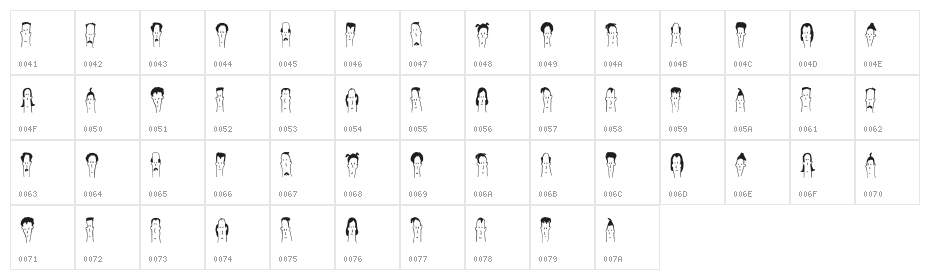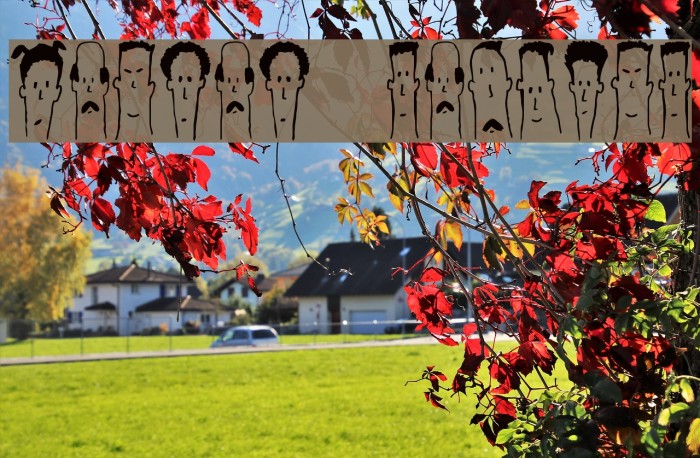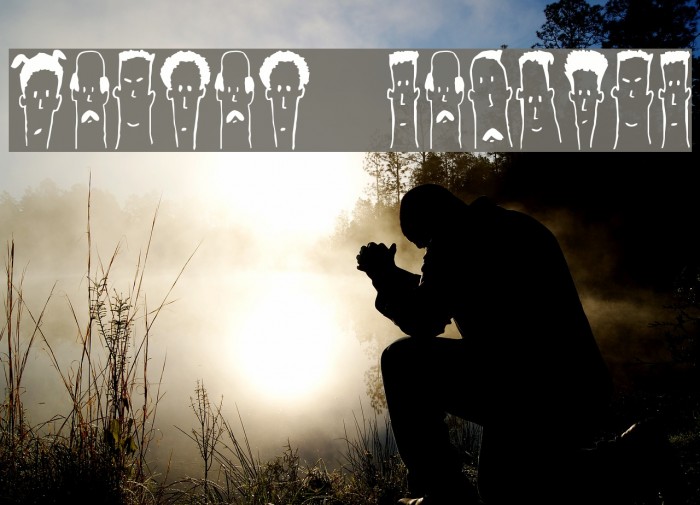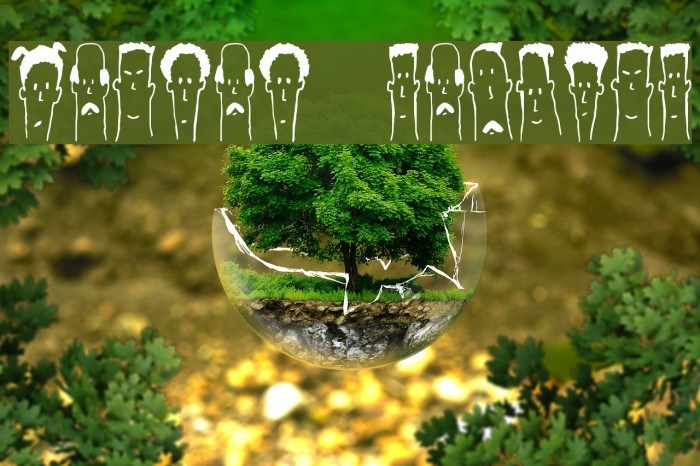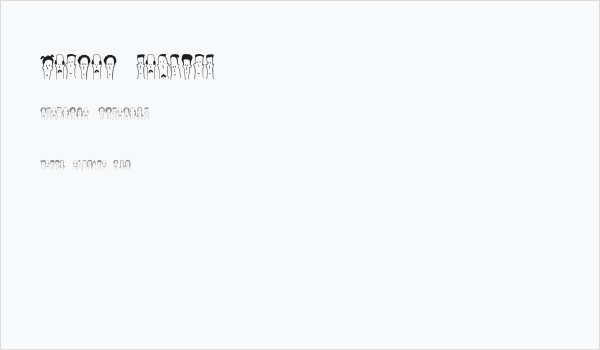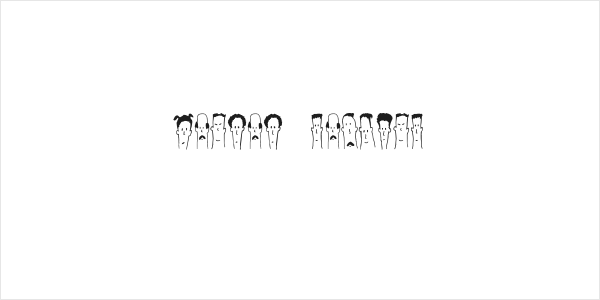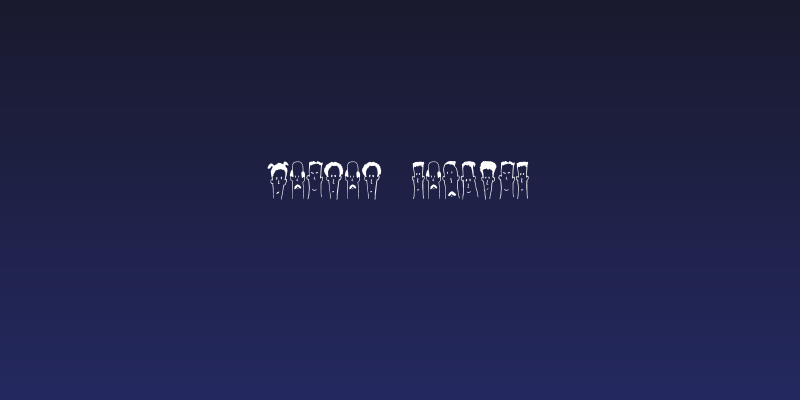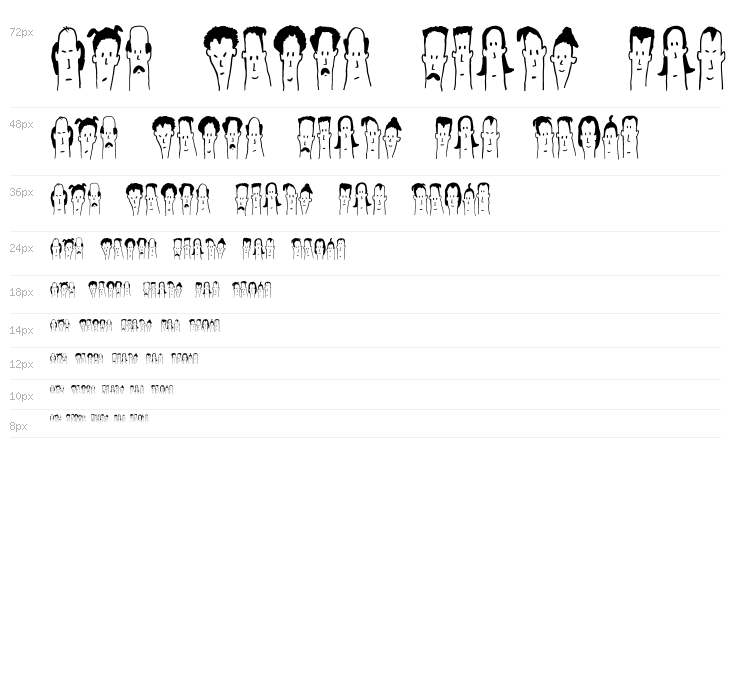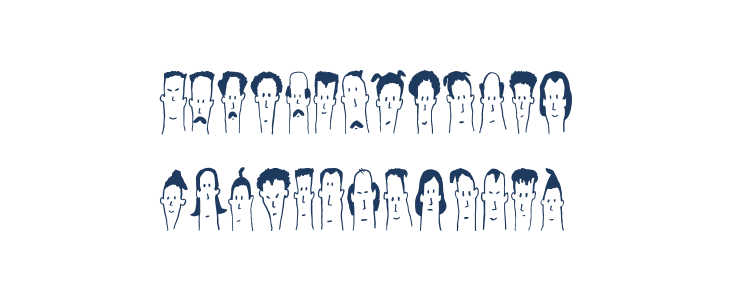
Headed Regular Font
Headed Regular Description
A highly decorative and whimsical typeface where each character is represented by a unique illustrated face, blending hand-drawn portraiture with letterforms for a playful and artistic effect.
| Overall Style | Whimsical, Artistic, Playful |
| Use Case | Logos, Headlines, Posters, Artistic projects |
| Proposed Projects | ChildrenΓ’β¬β’s books, posters, greeting cards, creative branding, event invitations, playful packaging. |